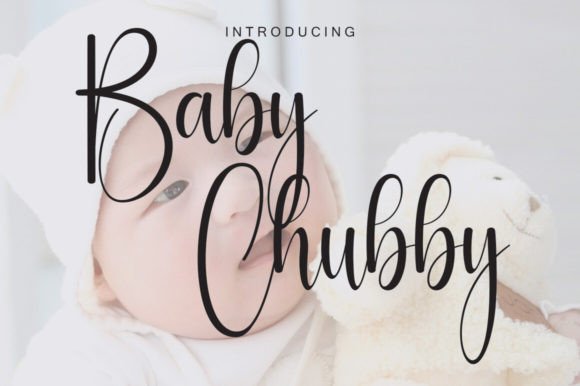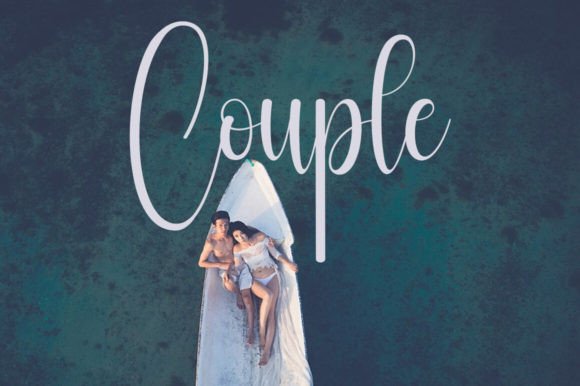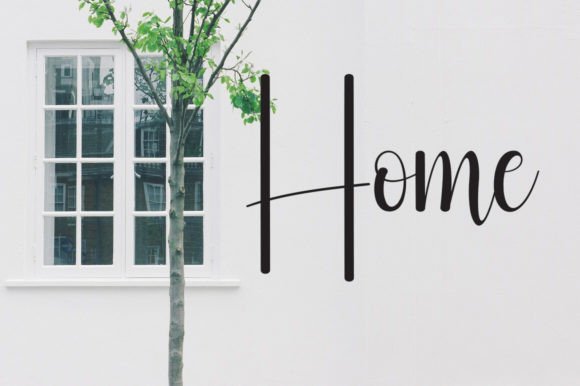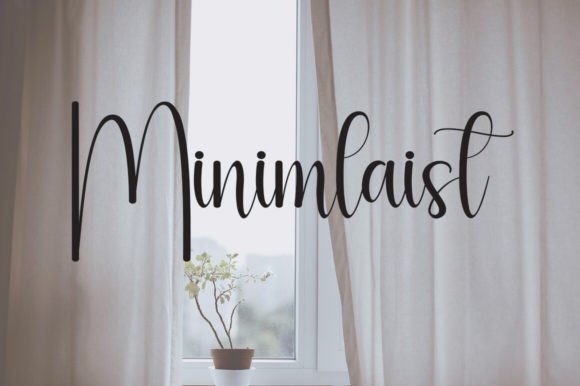
Baby Chubby Font: A Cute Handwritten Script for Wedding & Branding
About the Baby Chubby Font
The wait is over! The incredible Baby Chubby Font is now available for your design toolkit. Welcome to Baby Chubby, an elegantly syrupy handwritten script that prides itself on its fluid cursive style. This tender typeface adapts beautifully to an array of design concepts, its charming curvatures infusing any project with a sense of joy and romance. Perfect for that extra touch of whimsy and warmth, Baby Chubby promises to delicately transform your design endeavours.
Baby Chubby’s playful, yet elegant, nature makes it ideal for projects requiring a touch of whimsical charm. Consider using it for branding related to children’s products, wedding stationery, or projects emphasizing sweetness and romance. Headlines, short quotes, and logos benefit most from its distinctive style; however, its cursive form is less suitable for extended body text or UI elements where readability is paramount.
Pairing Baby Chubby with a clean sans-serif like Open Sans for body copy creates a balanced contrast, maintaining readability while retaining the font’s unique character. Alternatively, a geometric sans-serif offers a modern counterpoint, preventing the design from feeling overly saccharine. For a more luxurious feel, a delicate serif like Lora could be used for supporting text.
The font’s overall personality is best described as friendly and charming, conveying a sense of warmth and approachability. Avoid using it for projects demanding a strong, assertive, or minimalist aesthetic.